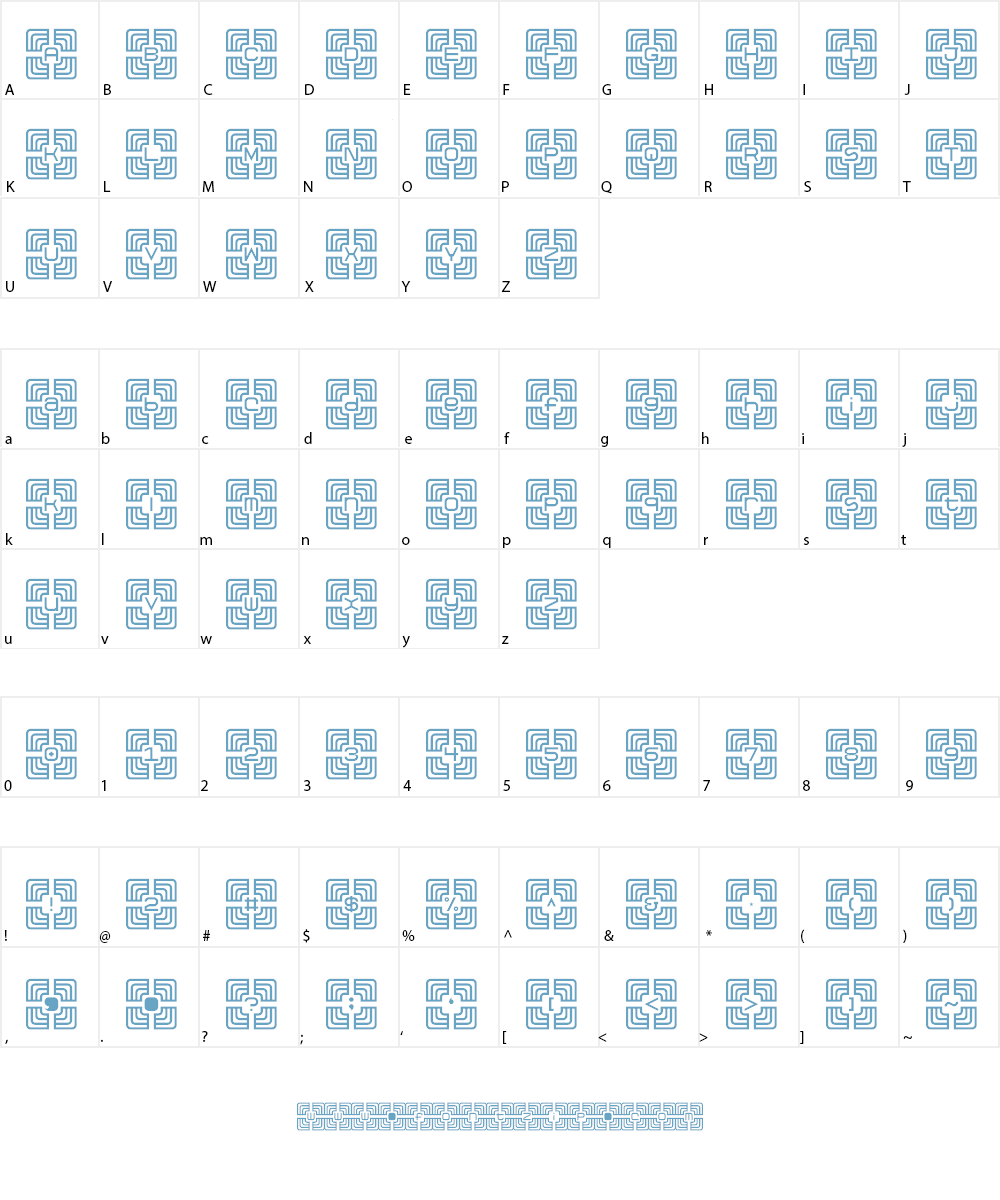
A design that looks like a top-down view of ziggurats!
I composited the diacritics so they'd fit into place, but this means that anything non-English needs to be pretty large to be unambiguously read...